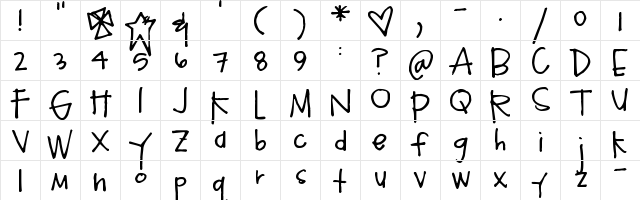
Pea Yar Yar Regular
Design Context for Pea Yar Yar Typeface
Pea Yar Yar is a composed and adaptable typeface that performs quietly and consistently across a wide range of design contexts.